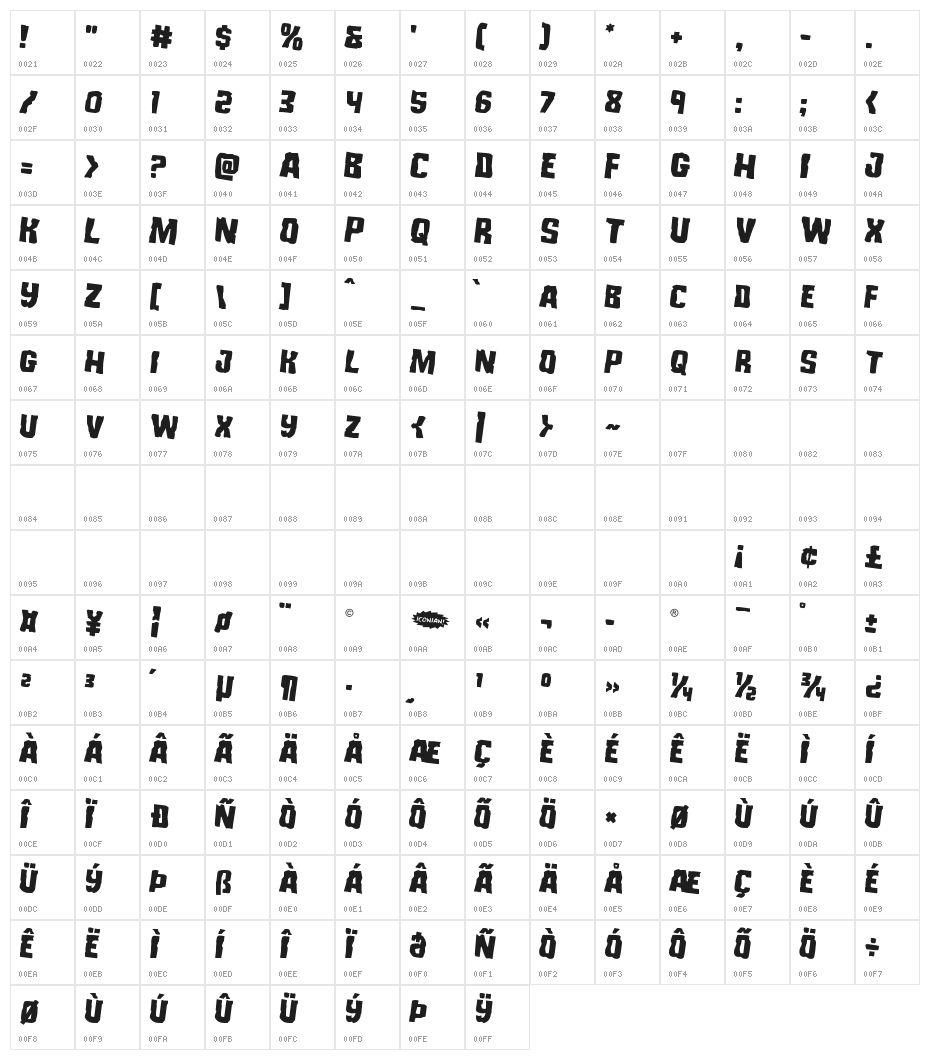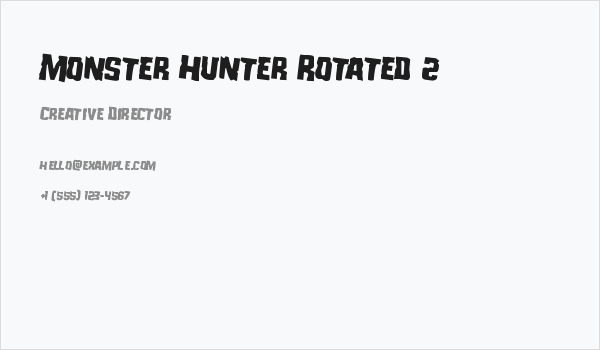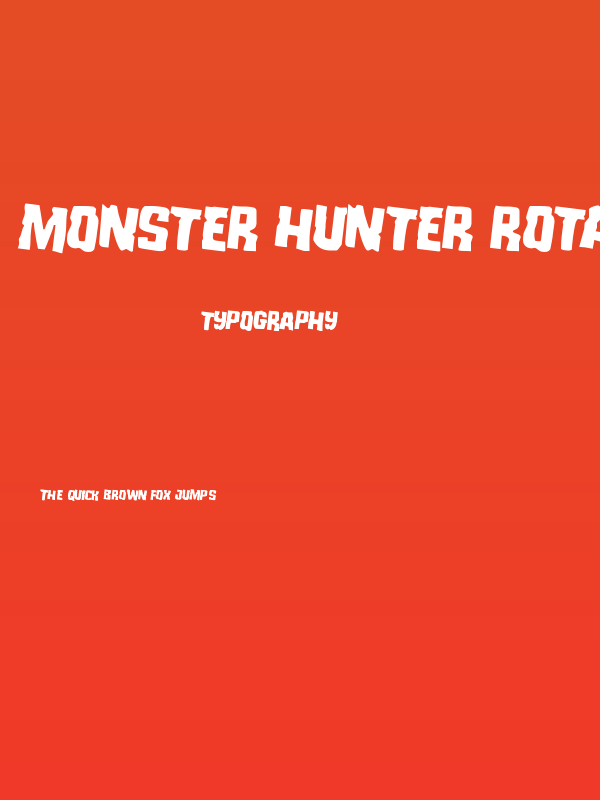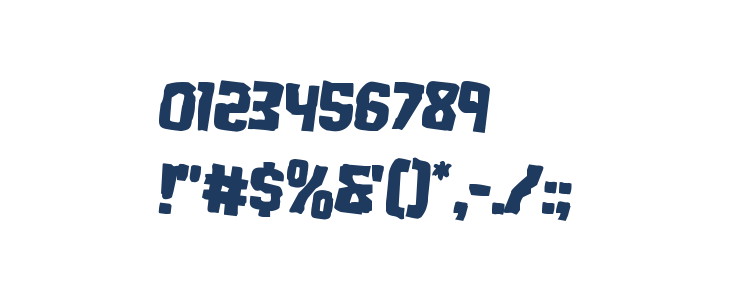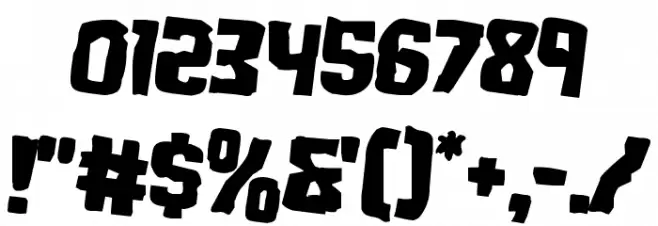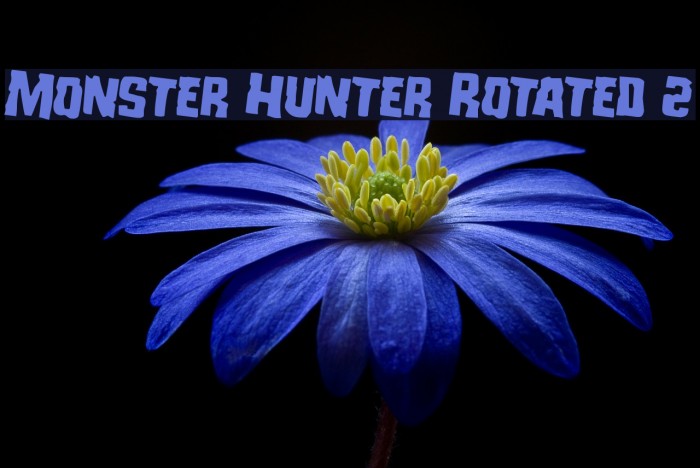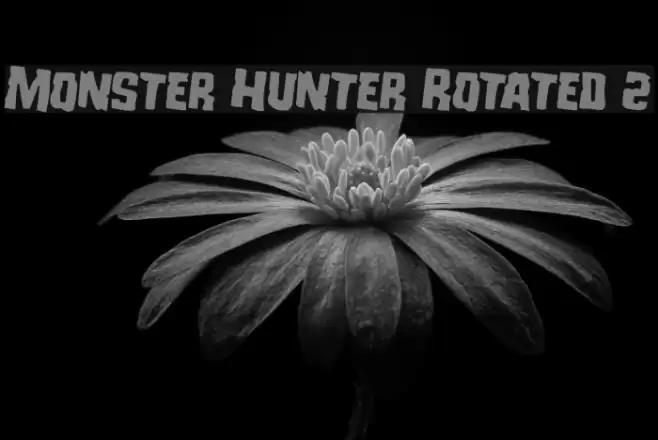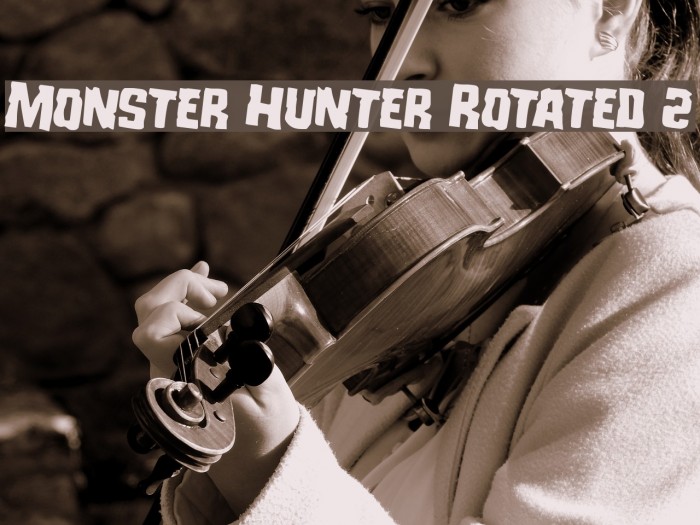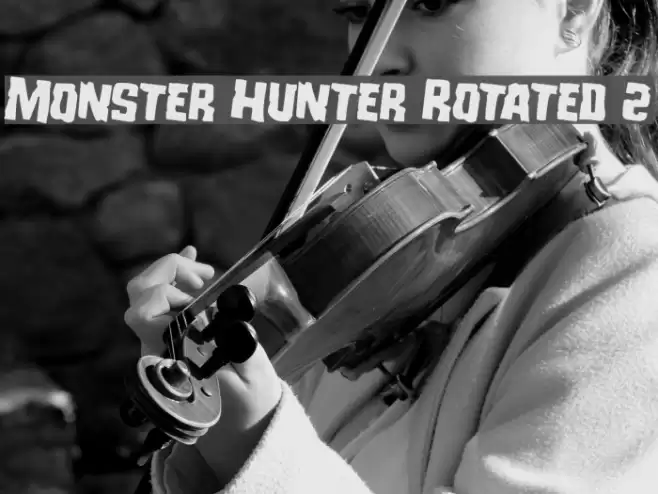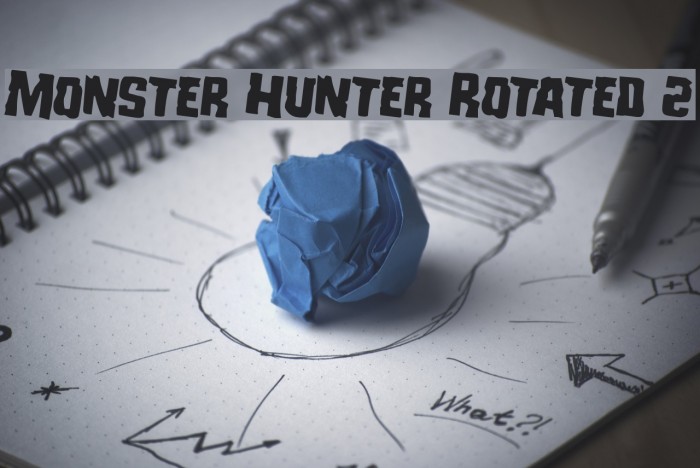
Monster Hunter Rotated 2 Font
Monster Hunter Rotated 2 Description
This font exhibits a bold and rugged style, characterized by its thick, uneven strokes and slightly irregular shapes. The letters have a hand-carved appearance, giving them a dynamic and energetic feel. The uppercase and lowercase letters maintain a consistent style, with a strong presence and a sense of movement. The numbers and special characters follow the same design principles, ensuring a cohesive look across all glyphs. The font's unique and bold aesthetic makes it suitable for projects that require a strong visual impact.